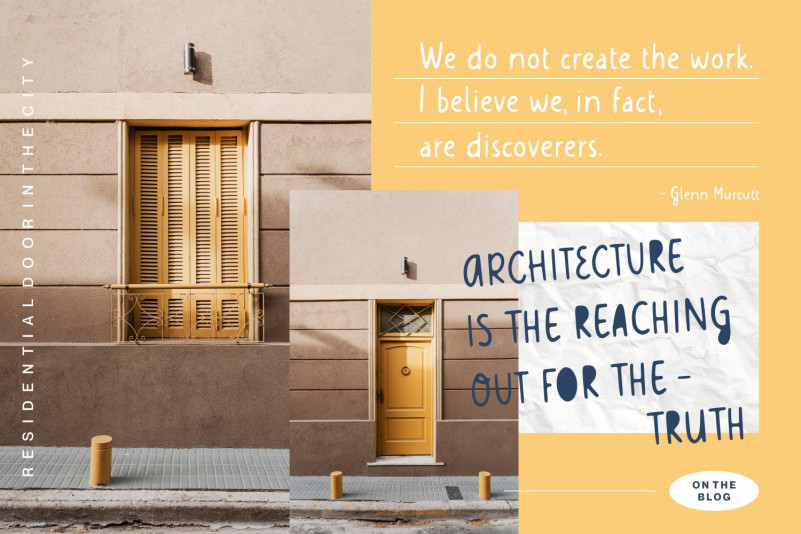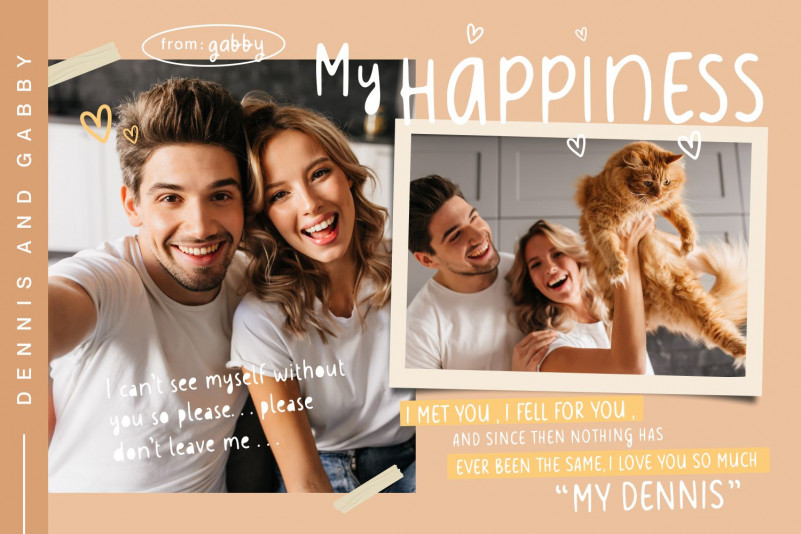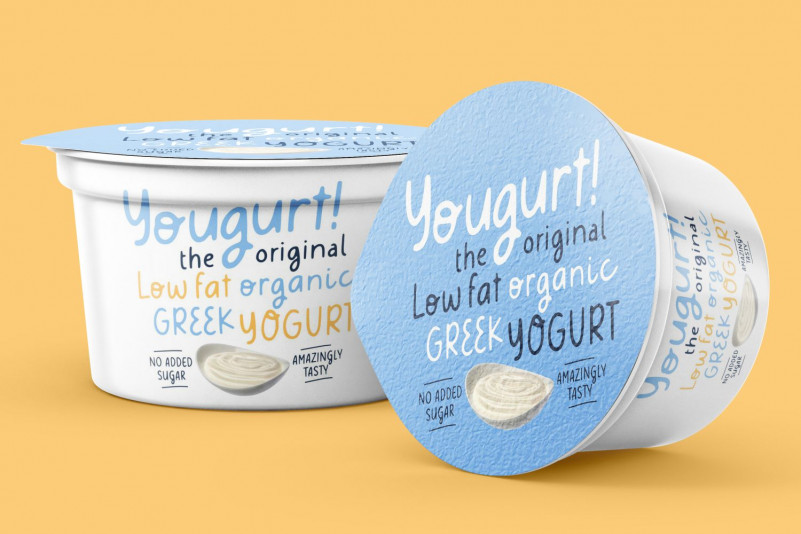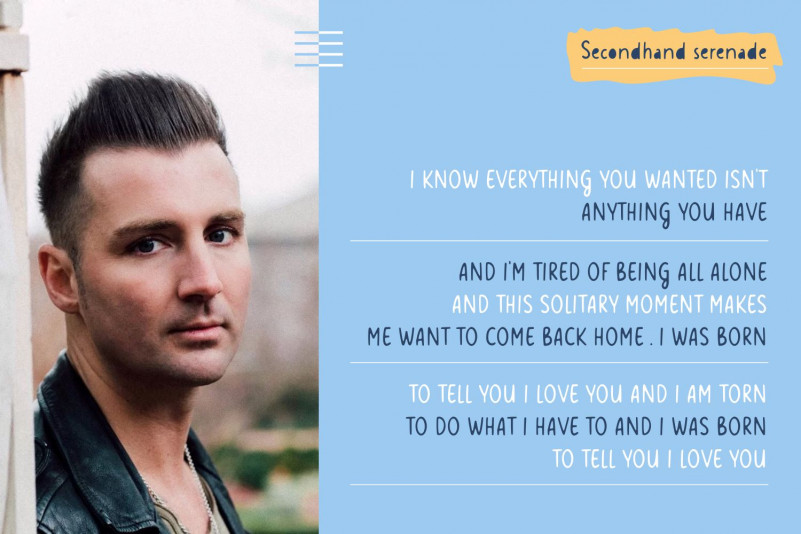
Meowtalk Display Font
This is a cute, chic and fun display font. No matter the topic, this font will be an incredibly asset to your fonts’ library, as it has the potential to elevate any creation.